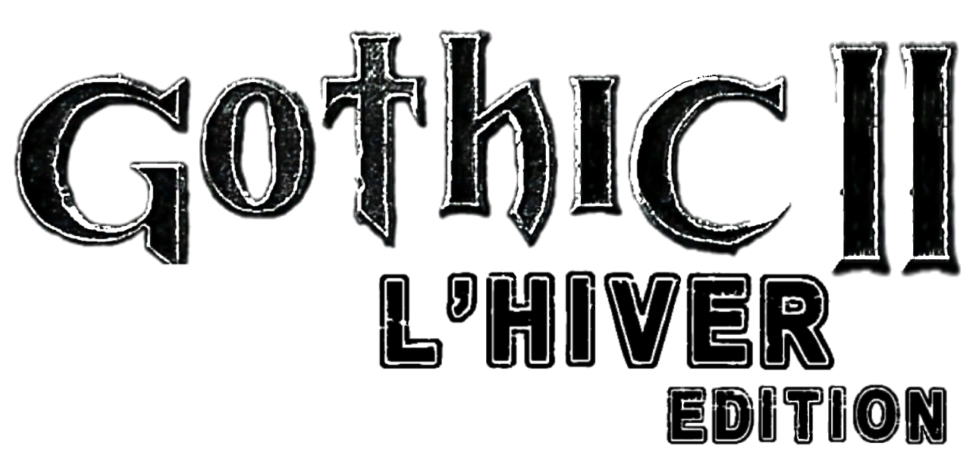
Hi there, guys… can anyone help me to figure out what are these font? I don’t know if they’re the same or different, at least one of them.
The sample is not very clear so these answers are not very accurate but hopefully a start …
– The words may be something like Cambria Bold (Microsoft system font) but not particularly close.
– The numbers (1x, 2x, 4x) look to be in the neighborhood of an Old English
I didn’t realize numbers font was different from the one of writings, can’t you say me what font is?
Dick has suggested that the numerals are from a blackletter font like Old English (although clearly not that particular font).
What about this font name?
Any suggestions?
You’re in luck: Dafont.
Maybe this one is pretty hard…
… but I hope you can help me anyway.
No exact matches were found. Since logo was from a game likely self-designed.
A lot of design similarities, so likely also self-designed for the logo.
Great, dude. And this?
Sample is getting smaller and cloudier but here’s one that might work: Softmaker Software MartinBecker-ExtraBold (There’s a Bold and Medium also):
Apart from the /S and the apostrophe being a little bit different, that looks like a pretty good match.
Sorry. Nothing close enough… DPape
No idea, Dick. The /G and the /N (and, by extension, the /R) look quite distinctive, but I can’t nail it down either.